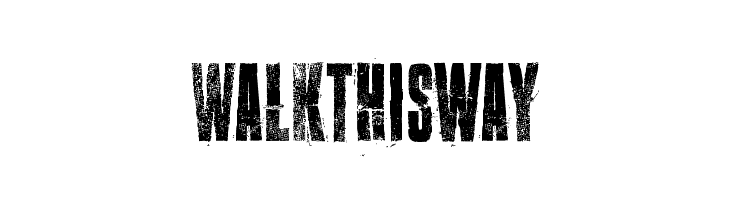
人気フォント セクションへようこそ。ここでは「よくダウンロードされ、よく使われている」実績ある書体をまとめています。 ロゴ、Web、SNS のどれにも使いやすい、外さない選択肢が見つかります。
どの トップフォント も、バランス・可読性・汎用性で高評価です。 モダン・サンセリフ、エレガントなスクリプト、ヴィンテージなセリフ、ミニマルなディスプレイなどを厳選しています。
A bold, semi-italic font with a modern and dynamic style.
A geometric, mosaic-style font with a modern and energetic appearance.
A graceful and elegant script font with flowing, interconnected characters.
A bold, left-italicized font with a modern, dynamic style.
A bold, condensed font with tight spacing and a modern style.
An abstract, geometric font with circular and elliptical shapes.
An elegant script font with flowing, connected strokes and ornate flourishes.
A bold, italicized font with a dynamic and impactful style.
A playful, hand-drawn font with rounded, consistent strokes and a sketch-like quality.
A flowing cursive font with elegant, interconnected letters.
A bold, dynamic font with thick, block-like letterforms and slightly rounded edges.
A sophisticated cursive font with elegant, flowing lines.
A playful, handwritten font with consistent strokes and rounded edges.
A playful, whimsical script font with flowing, cursive letters and charming flourishes.
A playful, curly font with a whimsical, hand-drawn style.
A bold, condensed font with strong vertical lines and tight spacing.
A playful, segmented font with a whimsical, airy design.
A bold, expressive handwritten font with dynamic strokes and a lively appearance.
A playful, melting-style font with a bold, rounded design.
A bold, futuristic italic font with sharp angles and a dynamic style.
A sophisticated cursive script with elegant, flowing strokes and ornate flourishes.
A dynamic, handwritten oblique font with a casual and energetic style.
A varied set of horror-inspired display fonts with dramatic and eerie styles.
A bold, italicized font with a halftone pattern, ideal for dynamic and futuristic designs.
A classic serif font with semi-bold weight, offering clarity and professionalism.
An elegant and flowing script font with refined cursive letters.
A modern, decorative font with sharp, angular lines.
A bold, expressive script font with smooth, flowing curves and a handwritten appearance.
A playful, casual handwritten font with smooth, rounded strokes.
A decorative and elegant script font with flowing, cursive characters.
A playful, handwritten-style font with bold, dynamic strokes.
A playful, bold outline font with rounded, bubbly characters.
A bold, italicized font with angular, modern design elements.
A bold, 3D geometric font with a strong, industrial style.
今のトップフォントは?
は、クリーンな造形と広い適用範囲で支持を集めています。 ブランディングからランディングページ、ポスターまで活躍します。
ロゴで人気のフォントは?
幾何学系の サンセリフ(例: Poppins、Gotham 系のファミリー)は、スケーラブルでクリーンな印象に最適。 親しみやすさを出すなら スクリプト や手書き系も定番です。 見出しは力強く、本文はニュートラルに──この組み合わせが認知とバランスを高めます。